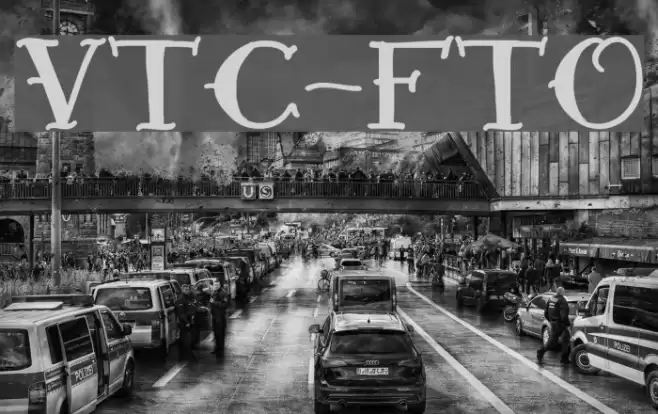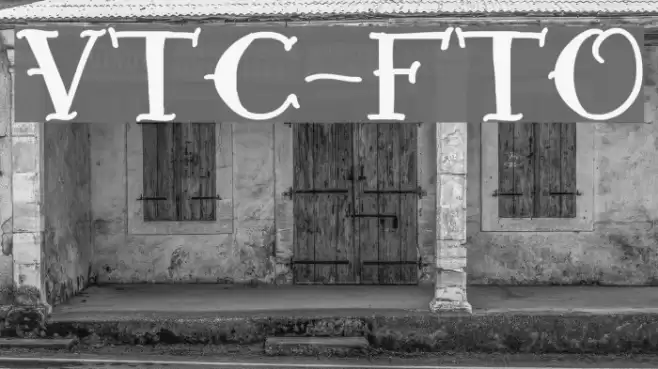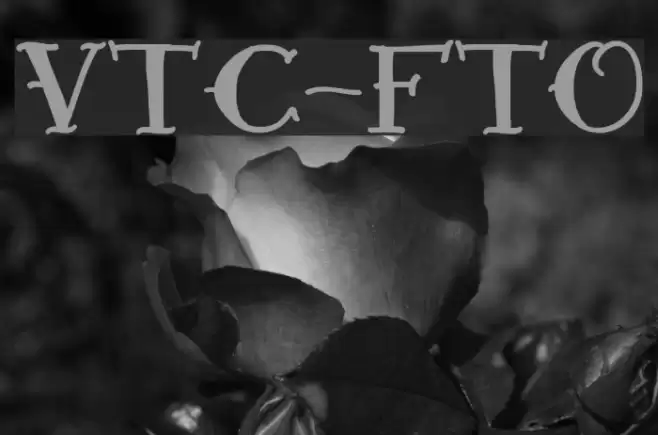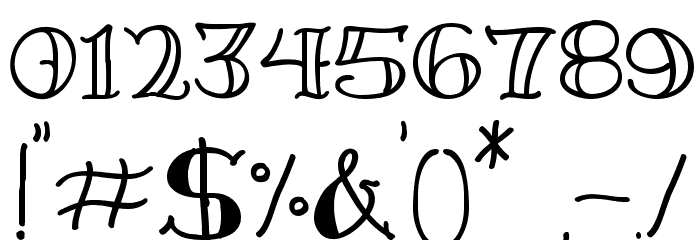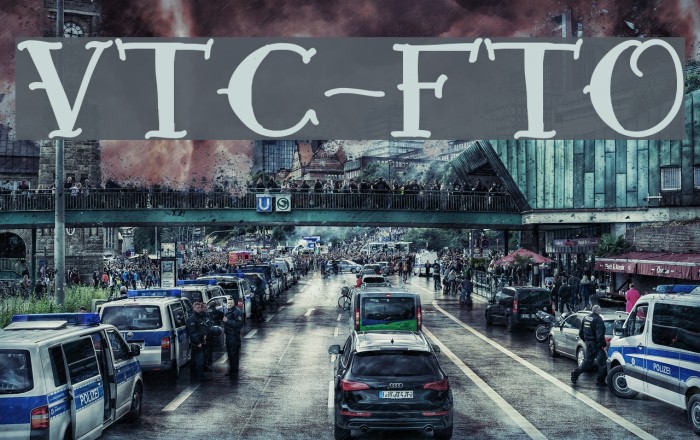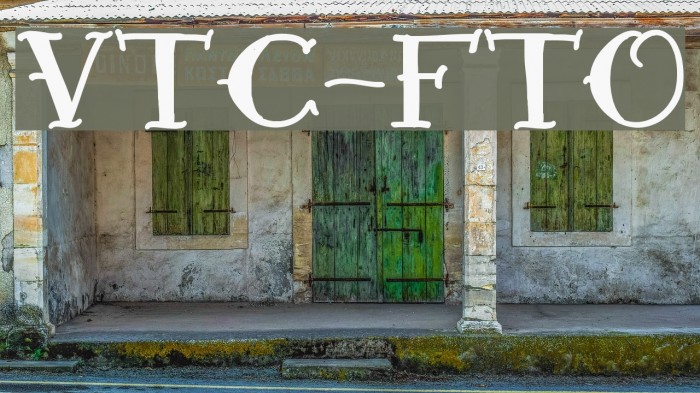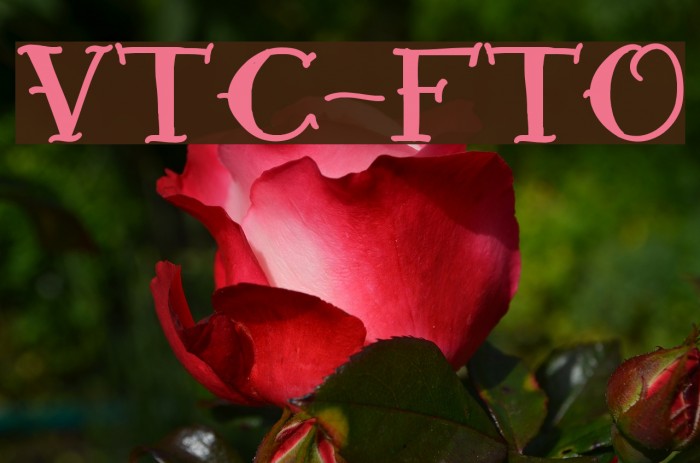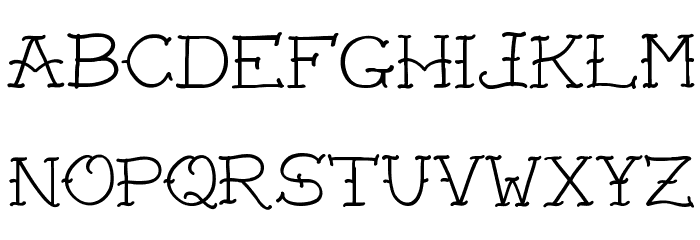
VTC-FreehandTattooOne Font
VTC-FreehandTattooOne Description
This font features a unique, hand-drawn style that mimics the appearance of freehand tattoo artistry. The characters are bold and slightly irregular, giving them a dynamic and edgy feel. The uppercase and lowercase letters maintain a consistent style, with playful curves and sharp edges that add to the overall aesthetic. Numbers and special characters are equally stylized, ensuring a cohesive look across all text elements. The font's design is both artistic and legible, making it suitable for creative projects that require a distinctive and personal touch.
A bold, hand-drawn font with a freehand tattoo style from Uncategorized fonts.
- Proposed Projects: Ideal for tattoo designs, artistic posters, album covers, and creative branding.
- Use Case: Logos, Headlines, Artistic projects